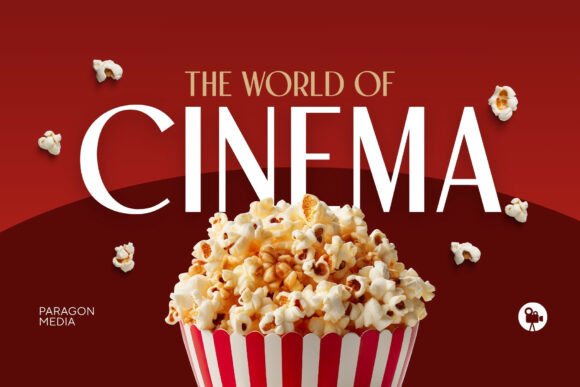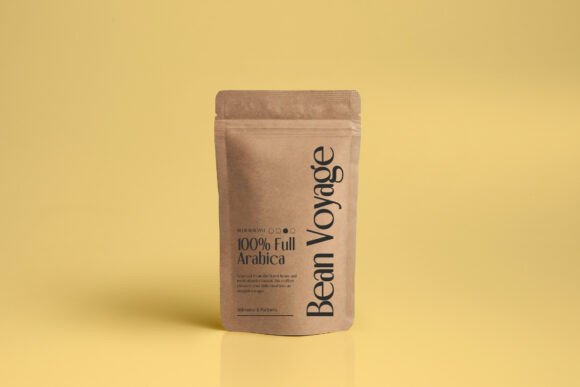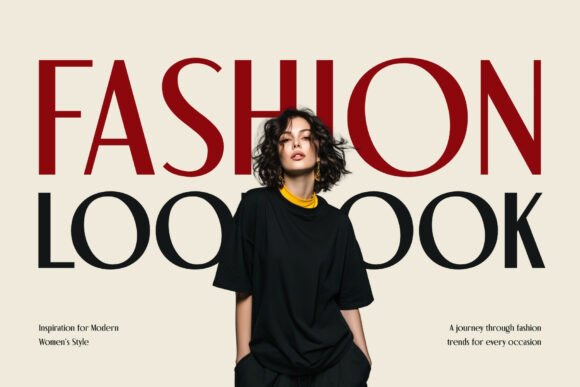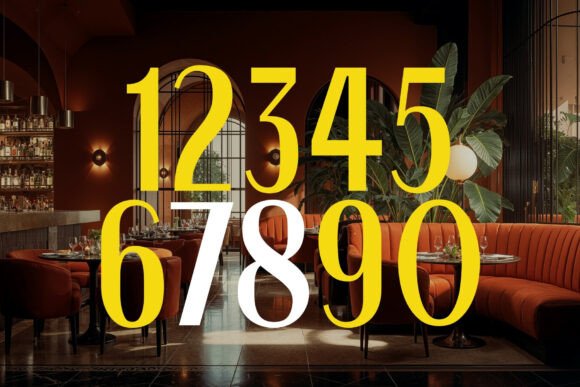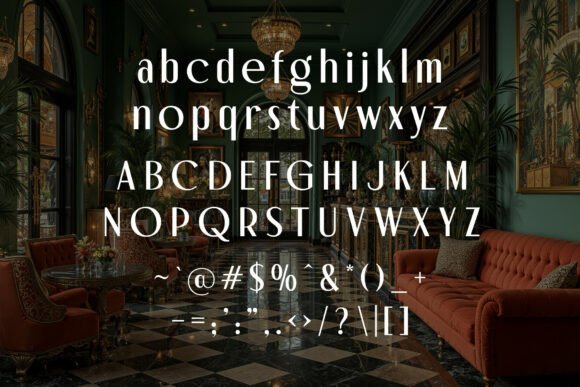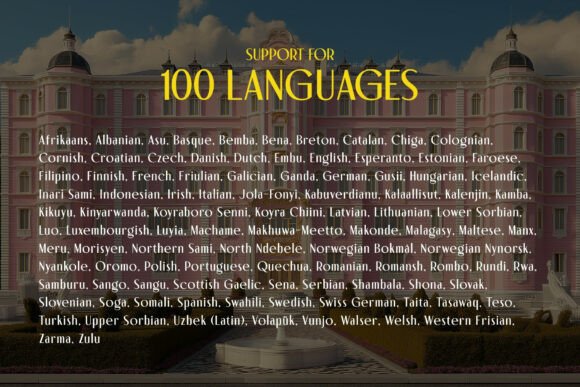
Step into the Golden Age of Design
Have you ever been browsing through a vintage boutique or antique shop, and suddenly, a beautiful poster or sign catches your eye? The elegant curves, the luxurious feel, and the sense of nostalgia that comes with it – it’s a moment that sparks creativity and inspires you to create something truly special. That’s exactly what the Golden Avenue Font is all about.
Designed to evoke the timeless elegance of Art Deco architecture and classic French style, this sophisticated luxury typeface is perfect for adding a touch of refinement and personality to your designs. Whether you’re working on a luxury brand, a vintage poster, or stylish packaging, the Golden Avenue Font delivers versatility and an iconic retro personality that’s hard to resist.
Golden Avenue Font Key Features
- Unique Characteristics: This font features a unique blend of modern and classic elements, with subtle flair and elegance, making it ideal for luxury and high-end branding.
Golden Avenue Font Review
Overall, I think the Golden Avenue Font is a solid choice for designers looking for a clean and elegant sans-serif font. Here are some of its strengths:
- ✨ Beautifully balanced proportions: The font’s x-height, width, and height are all well-balanced, making it easy on the eyes.
- ✨ Elegant flair: The subtle flair on the letters gives the font a sophisticated feel, perfect for luxury brands or high-end designs.
- ✨ Excellent legibility: The font is highly legible, even at small sizes, making it suitable for a wide range of applications.
- ⚠️ Limited character set: The font only includes a standard set of characters, which might be a problem for designers working with non-Latin scripts.
- ⚠️ No bold or italic variants: While the font is elegant, it might not be suitable for designs that require a bolder or more dramatic look.
Overall, I’d say the Golden Avenue Font is a great choice for designers who want a clean, elegant sans-serif font with excellent legibility. However, it might not be the best fit for projects that require a wider character set or more dramatic typography.
To get the most out of the Golden Avenue Font, use it for:
- Creating elegant invitations and event materials.
- Designing beautiful blog posts and articles.
- Developing professional-looking resumes and cover letters.
- Adding a touch of sophistication to your social media graphics.
Alternatives to Golden Avenue Font
Playfair Display is a luxurious, elegant serif font ideal for high-end branding, advertising, and editorial designs. It features intricate details and a classic feel, making it perfect for projects that require sophistication and refinement. Compared to Golden Avenue Font, Playfair Display has a more dramatic and ornate style, making it suitable for projects where you want to make a statement.
Lato is a clean, modern sans-serif font suitable for a wide range of applications, from body text to headlines. It’s highly legible and versatile, making it an excellent choice for projects where you need a clear and concise font. Compared to Golden Avenue Font, Lato is more minimalist and easy to read, making it perfect for digital interfaces and publications.